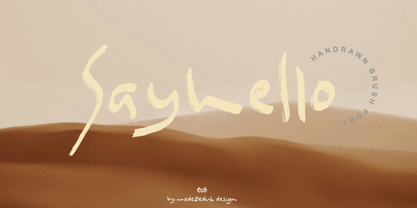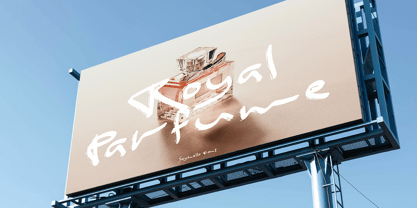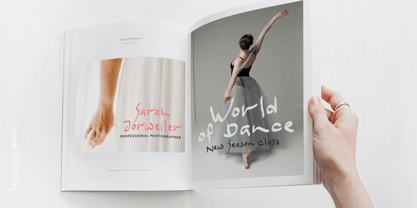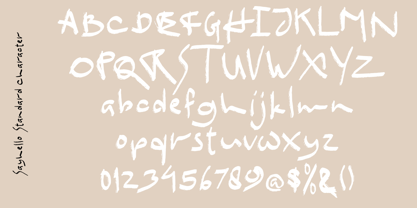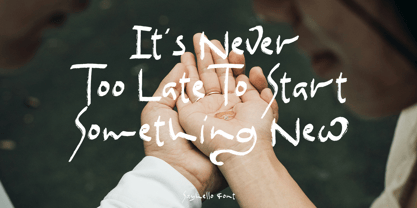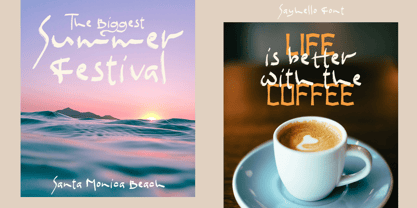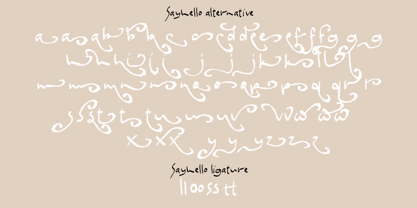
Sayhello
by madeDeduk
The Sayhello Font Family was designed by madededuk and published by madeDeduk. Sayhello contains 1 styles. More about this family
Really excited to introduce Sayhello is a realistic brush font! Give a incredible impression for all your project design. Sayhello font come with much alternative and this font perfect for poster design, book covers, merchandise, fashion, newsletters, branding, advertising, magazines, greeting cards, album covers, quote and more.
Designers: madededuk
Foundry: madeDeduk